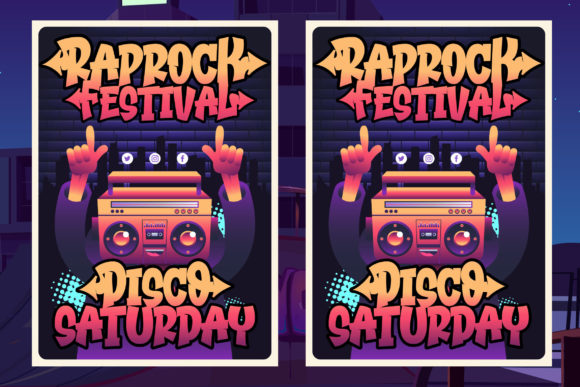
Introducing Airneo Font: A Cool Graffiti Styled Display Font
Are you looking for a font that can add a touch of coolness to your designs? Look no further than Airneo Font. This graffiti styled display font is perfect for adding a unique and edgy feel to any project. In this article, we’ll take a closer look at Airneo Font and explore its features, benefits, and uses.
Key Features of Airneo Font
- Graffiti Styled: Airneo Font has a distinctive graffiti style that gives it a cool and edgy feel.
- Display Font: This font is designed specifically for display purposes, making it perfect for headlines, titles, and other attention-grabbing elements.
- Versatile: Airneo Font can be used for a wide range of topics and projects, from fashion and music to technology and art.
- Easy to Read: Despite its graffiti style, Airneo Font is surprisingly easy to read, making it perfect for use in a variety of contexts.
Benefits of Using Airneo Font
So why should you choose Airneo Font for your next project? Here are just a few benefits of using this amazing font:
- Adds a Touch of Coolness: Airneo Font has a unique and edgy style that can add a touch of coolness to any design.
- Enhances Creativity: With its bold and expressive style, Airneo Font can help to enhance your creativity and add a new level of excitement to your designs.
- Perfect for Graffiti and Street Art: If you’re working on a project related to graffiti or street art, Airneo Font is a perfect choice.
- Wide Range of Uses: Airneo Font can be used for a wide range of projects, from posters and flyers to logos and branding.
Uses of Airneo Font
So what can you use Airneo Font for? Here are just a few ideas to get you started:
- Posters and Flyers: Airneo Font is perfect for creating eye-catching posters and flyers that will grab attention.
- Logos and Branding: Use Airneo Font to create a unique and memorable logo or brand identity.
- Social Media Graphics: Airneo Font can be used to create engaging social media graphics that will help you stand out from the crowd.
- Art and Design Projects: If you’re working on an art or design project, Airneo Font can be a great addition to your toolkit.
Tips for Using Airneo Font
Here are a few tips for getting the most out of Airneo Font:
- Use it Sparingly: Because Airneo Font is so bold and expressive, it’s best to use it sparingly to avoid overwhelming your design.
- Experiment with Colors: Airneo Font looks great in a variety of colors, so don’t be afraid to experiment and find the perfect hue for your design.
- Pair it with Other Fonts: Airneo Font can be paired with other fonts to create a unique and interesting contrast.
In conclusion, Airneo Font is a cool and versatile graffiti styled display font that can add a touch of coolness to any design. With its bold and expressive style, it’s perfect for a wide range of projects, from posters and flyers to logos and branding. So why not give it a try and see how it can enhance your creativity and add a new level of excitement to your designs?